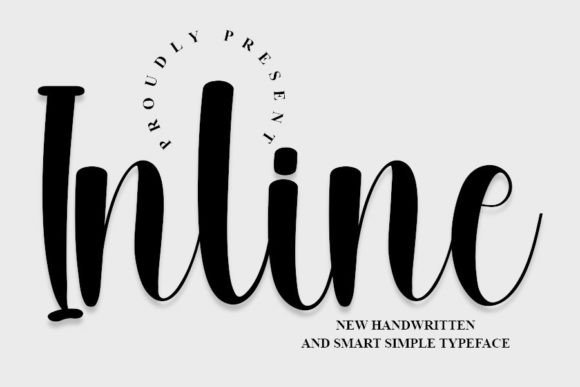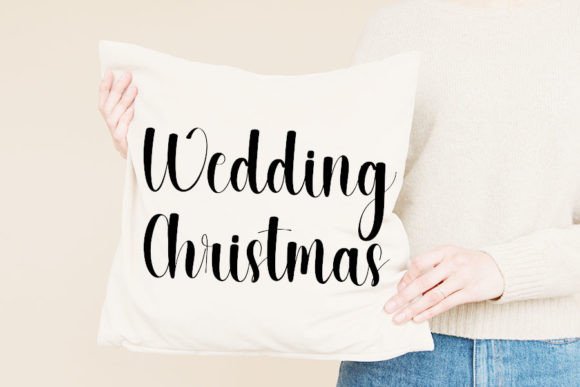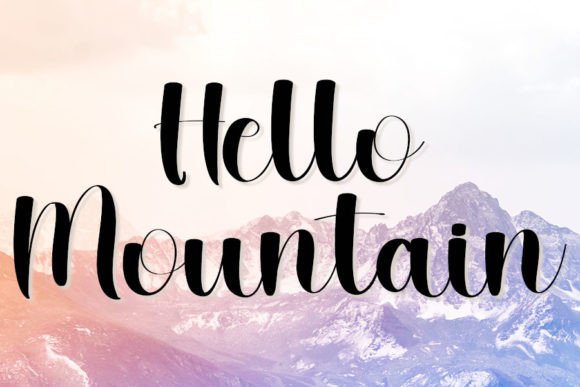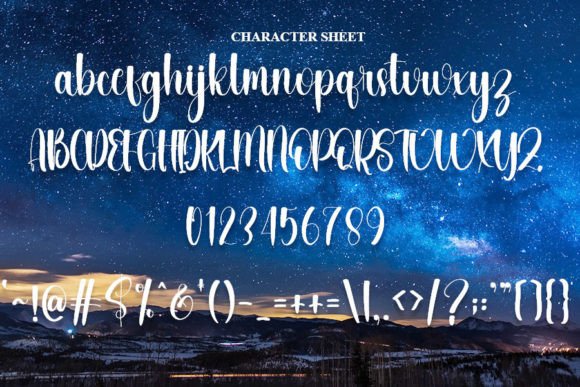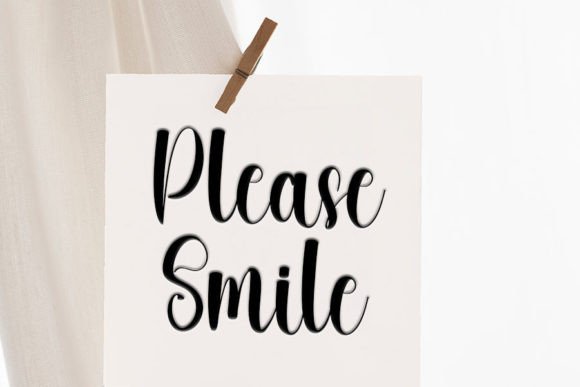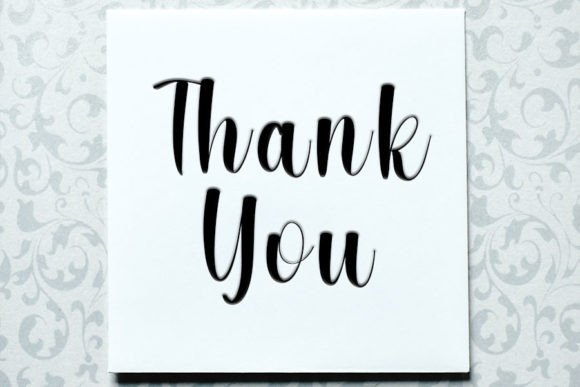
Handwritten Font Inline – Add Class to Your Designs
Inline is a beautifully crafted handwritten font that blends timeless calligraphy with a modern flair. It’s ideal for designers seeking a clean yet elegant typeface that elevates any visual project.
Whether you’re creating branding materials or crafting meaningful messages, Inline helps you communicate sophistication and style effortlessly.
Where to Use This Handwritten Font
The versatility of Inline makes it a perfect fit for a wide range of creative applications. From chic business identities to romantic events, this handwritten font delivers remarkable results.
You can use it for:
✉️ Elegant invitations and stationery
💼 Branding and visual identities
🛍️ Product packaging and labels
🖋️ Hand-lettered logos and social media designs
📖 Book covers and editorial layouts
🪄 Personal projects needing a creative touch
Key Features of Inline
Additionally, it pairs beautifully with serif or sans-serif fonts, giving you flexibility in typography combinations.
Why Designers Love Inline
This handwritten font stands out thanks to its balance of style and readability. It captures the elegance of calligraphy while maintaining a modern look. If you’re aiming to create high-end visuals with emotional appeal, Inline is the font that gets the job done with flair.